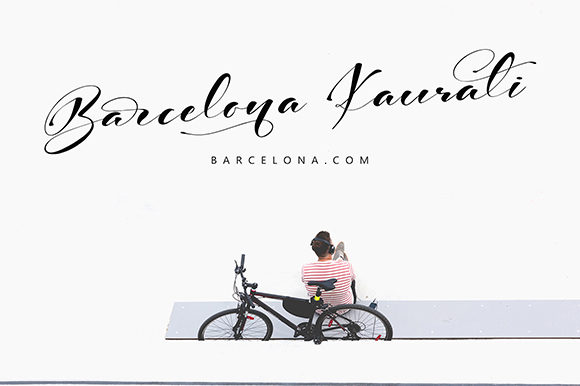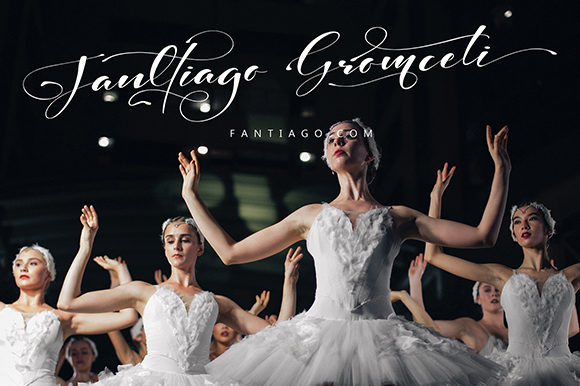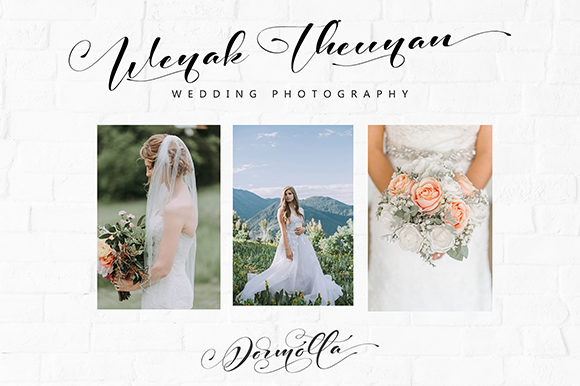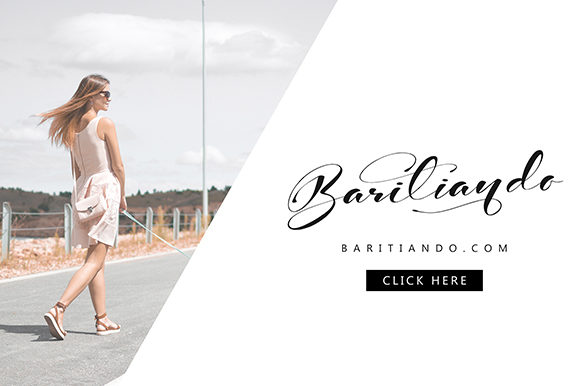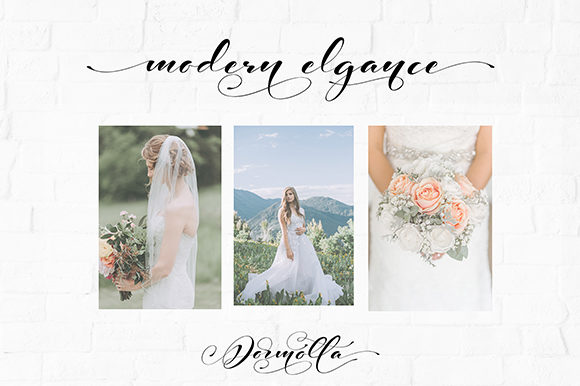
I still remember the frustration of working on a design project, hours spent crafting the perfect layout, only to hit a roadblock: finding the right font. My client wanted something luxurious, elegant, and eye-catching, but I just couldn’t seem to find the perfect fit. That was until I stumbled upon the Dormotta font. **It was love at first sight!** ✨
An Honest Review of Dormotta Font
- 💫 Unique and Luxurious Feel: Dormotta font has a bold and beautiful handwritten style that adds a touch of sophistication to any design project.
- ✅ Ease of Use: The font is easy to read and works well in various design applications, from digital media to print materials.
- 🌈 Versatility: Dormotta font comes with a range of OpenType features, glyphs, and stylistic alternates, making it perfect for creative projects that require a bit of flair.
While Dormotta font is an excellent choice, there are a few things to keep in mind: 🤔
- ⚠️ Limited Use in Small Sizes: Due to its bold and ornate nature, Dormotta font may not be the best choice for small font sizes or body text.
- ⚠️ Kerning Issues: As with any font, some users may experience kerning issues, especially when using certain character combinations.
The Story Behind Dormotta Font
Dormotta font was designed with the intention of creating a luxurious and elegant handwritten font that would add a touch of sophistication to any design project. The designer, inspired by classic calligraphy and modern typography, crafted a font that is both bold and beautiful. **The result is a font that’s perfect for designers, crafters, and creative hobbyists alike!** 🎨
| Font Name | Dormotta Font |
| Author | Pineungtype & Missinklab |
Q: What is the best way to use Dormotta font?
A: Dormotta font is best used for headlines, titles, and creative projects that require a luxurious and elegant feel. It’s perfect for designs that need a bold and eye-catching font.
Q: Is Dormotta font suitable for small font sizes?
A: Due to its bold and ornate nature, Dormotta font may not be the best choice for small font sizes or body text. It’s best used for larger font sizes where its unique features can shine.